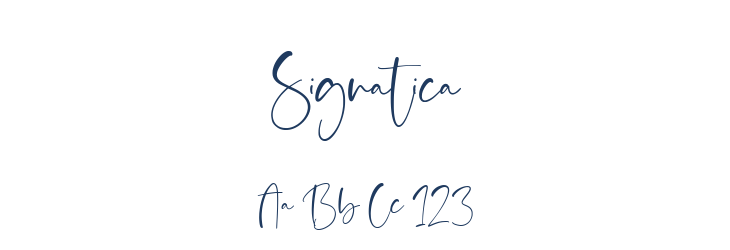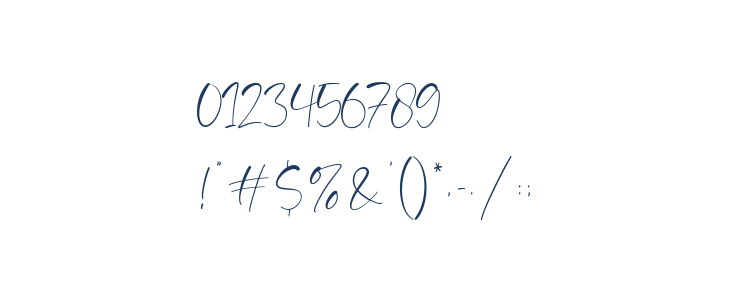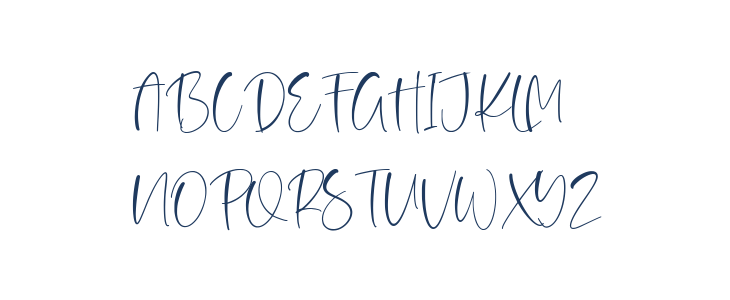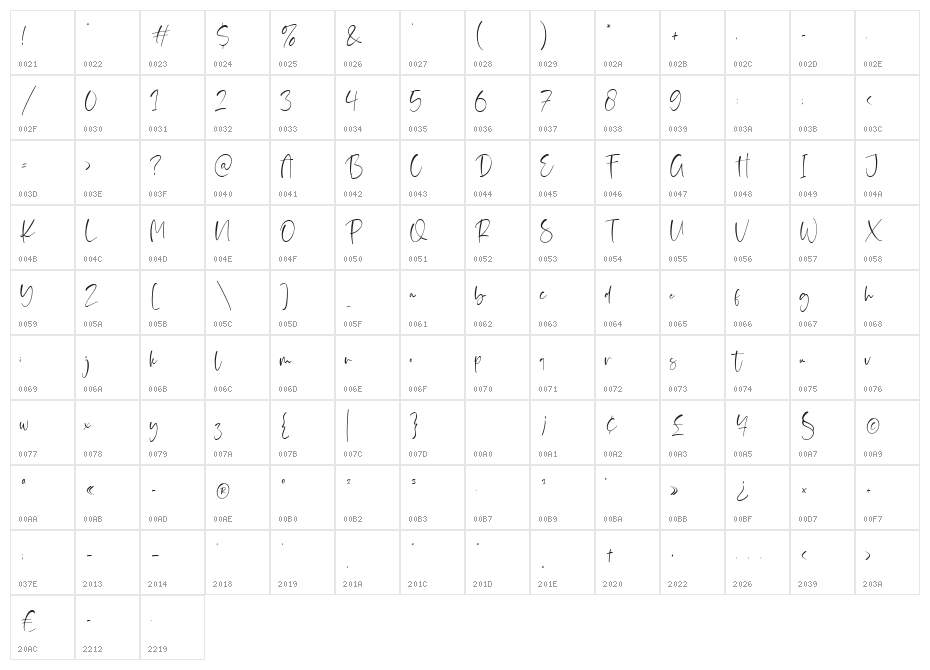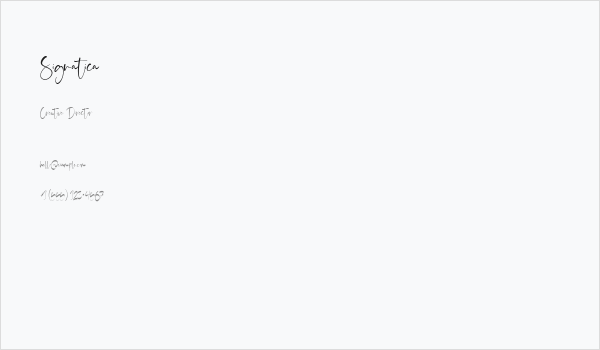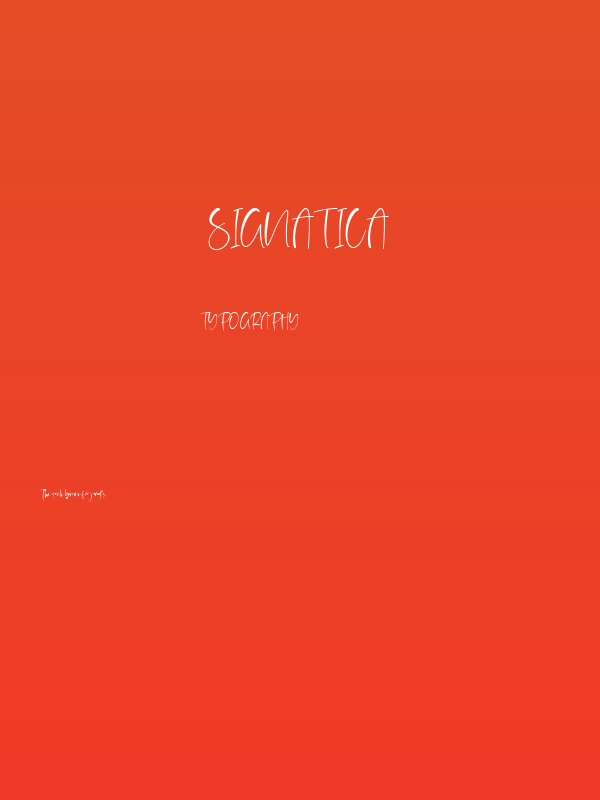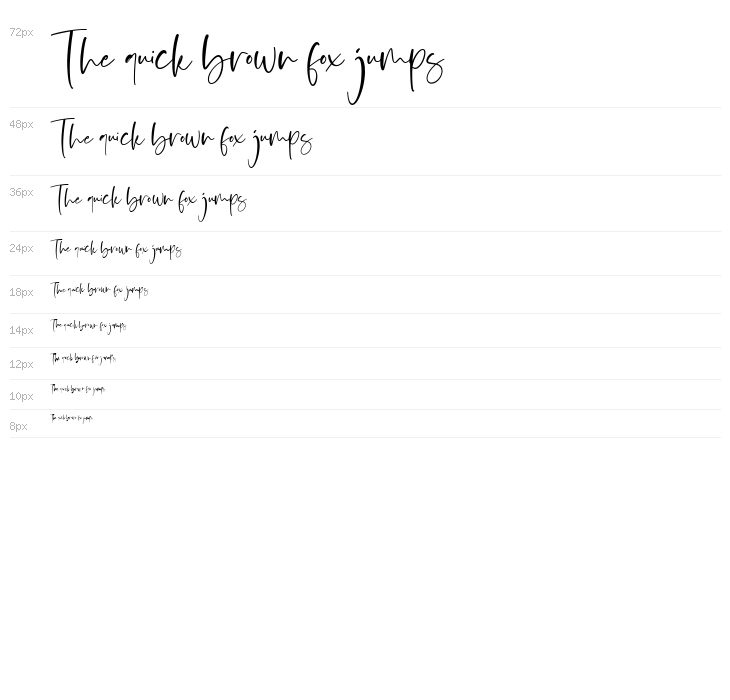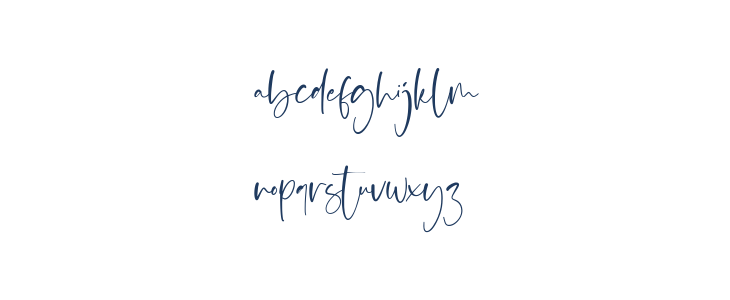
Signatica Font
Signatica Description
A loose, flowing handwritten script with tall, narrow letterforms and variable stroke thickness, giving a casual and expressive appearance. The characters are slightly irregular, enhancing the organic, personal feel.
| Width | Condensed |
| Overall Style | Decorative, Casual, Modern |
| Use Case | Logos, Headlines, Invitations, Social media posts |
| Proposed Projects | Invitations, greeting cards, personal branding, quotes, social media graphics. |